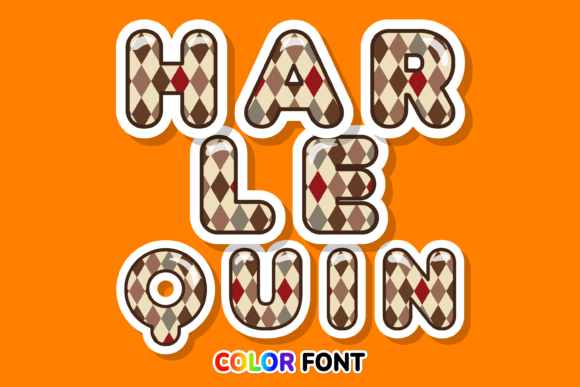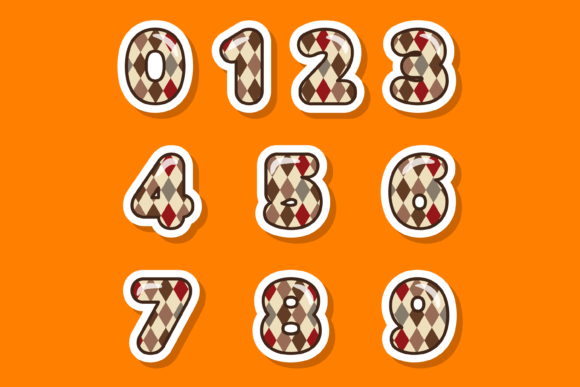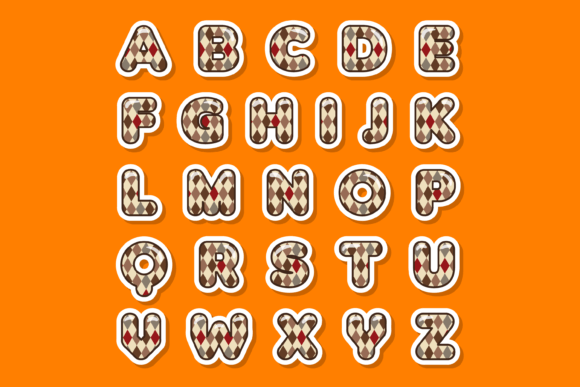
Harlequin Font
Harlequin is an exceptionally cool and visually striking color font. Its unique characteristics make it a fantastic choice for a wide range of creative projects, including custom designs, DIY crafts, and any creation that calls for a touch of loveliness.
With its vibrant and playful appearance, Harlequin adds a sense of fun and excitement to your designs. The font’s intricate color patterns and captivating letterforms make it truly stand out, grabbing attention and leaving a lasting impression.
Whether you’re designing personalized invitations, creating eye-catching posters, or adding a creative twist to your DIY projects, Harlequin will undoubtedly elevate your creations. Its cool and lively nature infuses energy and charm into your designs, making them visually appealing and unique.
Harlequin’s versatility allows it to be used across various mediums and applications. It can bring life to digital designs, printed materials, or even handmade crafts. The font’s lovely touch adds a special element of artistry and creativity to your projects, making them truly remarkable.
Embrace the coolness of Harlequin and unleash your creativity. Whether you’re a designer, crafter, or someone looking to add a touch of uniqueness to their creations, this font will undoubtedly be an amazing choice. Let the playful and captivating nature of Harlequin inspire your imagination and take your designs to the next level.